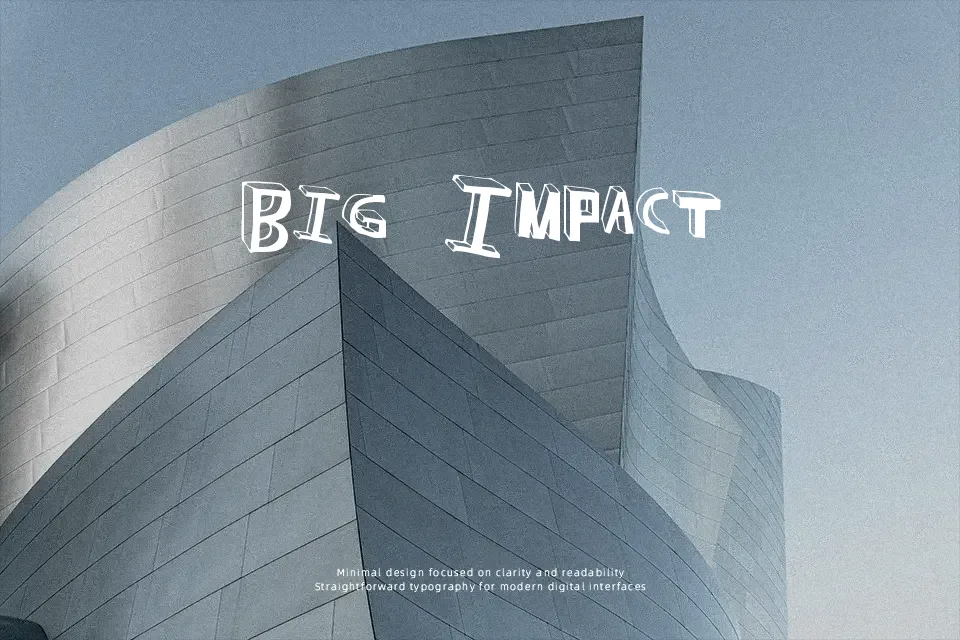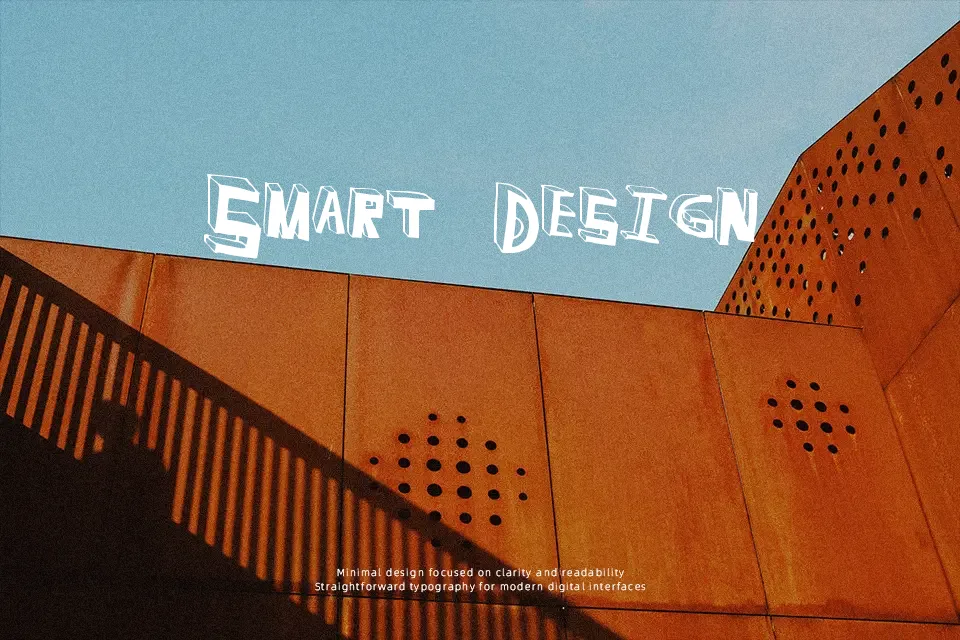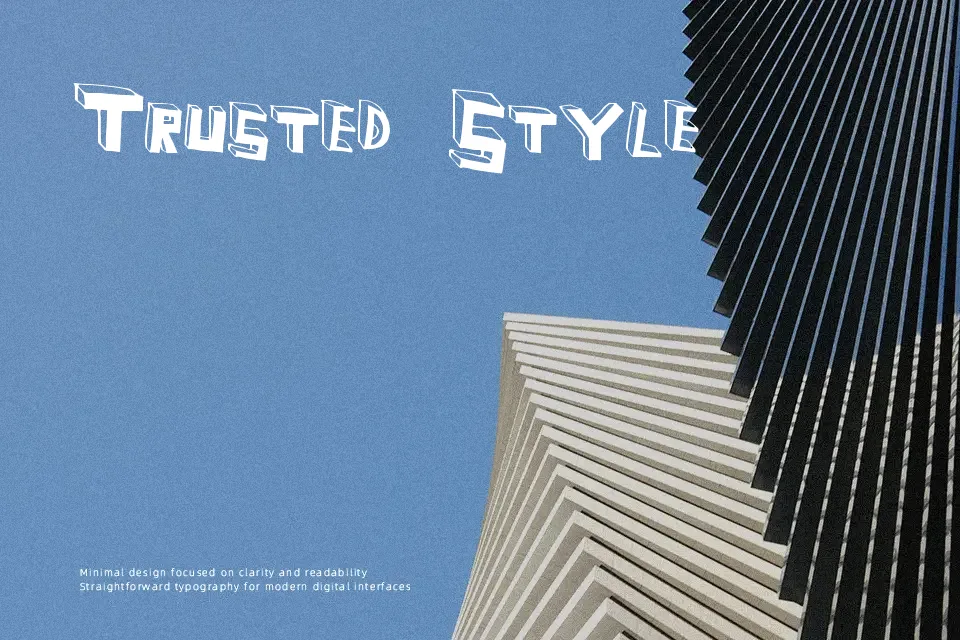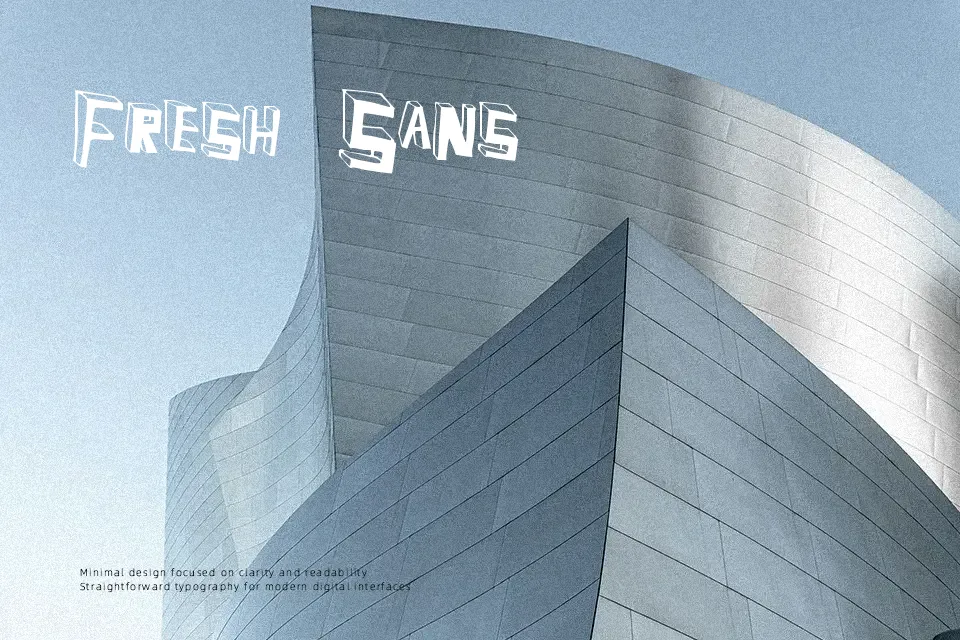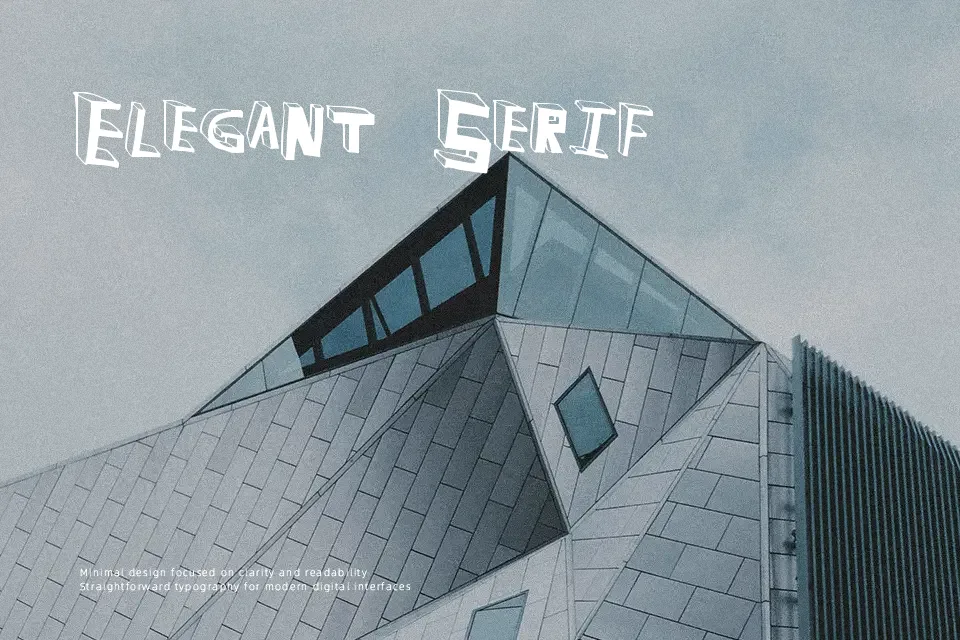
Run Away Font
The Run Away Font features an irregular, hand-drawn structure built with bold, textured strokes and playful proportions. The letterforms display a distinctly rough, unrefined aesthetic that instantly adds energy to a layout. With somewhat uneven yet open spacing, the characters maintain decent legibility when scaled up for display purposes. The heavy strokes help maintain clarity in larger headlines, giving it a strong visual impact. This design performs exceptionally well in striking music festival posters, quirky product packaging, and rebellious apparel graphics. However, the organic roughness severely reduces continuous reading comfort. It is not suitable for dense paragraphs, where the distressed edges can quickly overwhelm the eye.
quirky product packaging
streetwear apparel graphics
rebellious brand logos
Perfect for branding, headline, and packaging, with a bold and cartoon style.